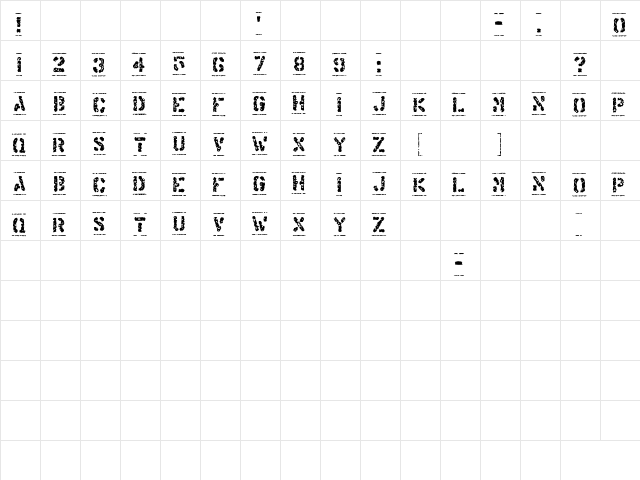
Offshore Banking Business Regular
Design Context for Offshore Banking Business Typeface
Offshore Banking Business is a composed and adaptable typeface that performs quietly and consistently across a wide range of design contexts.